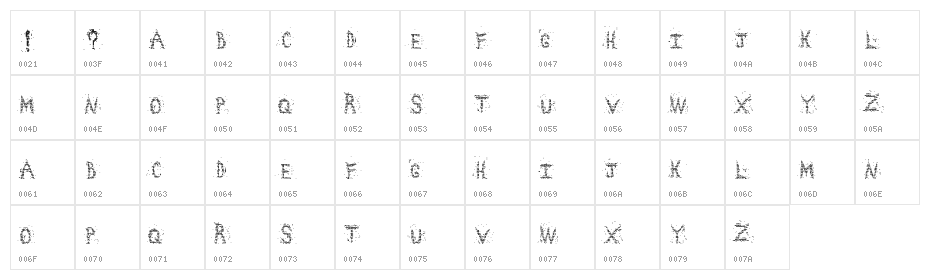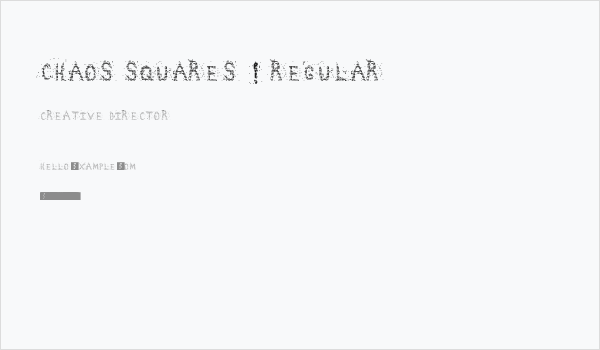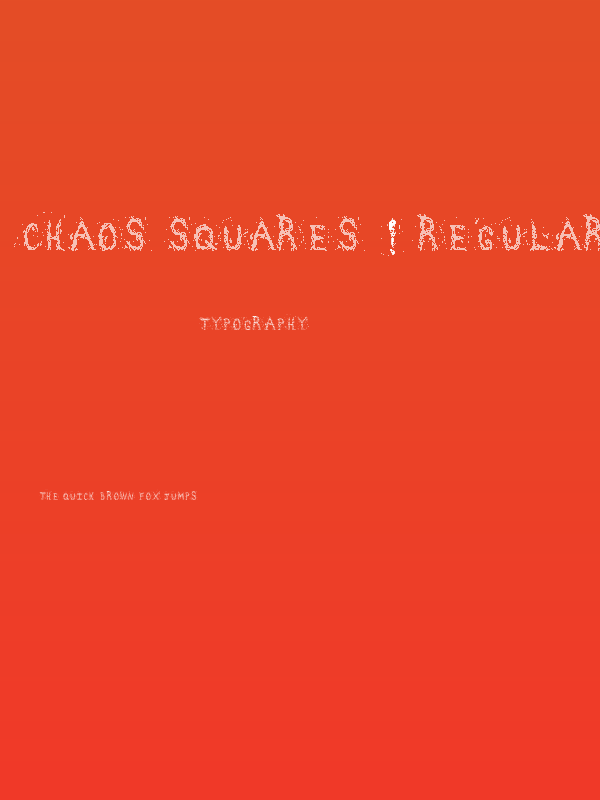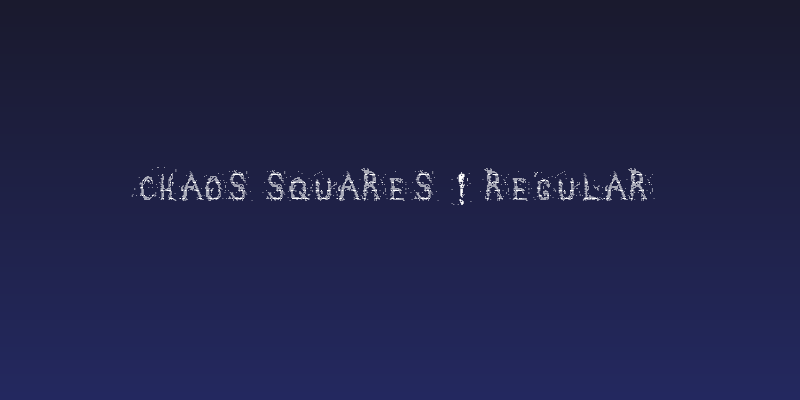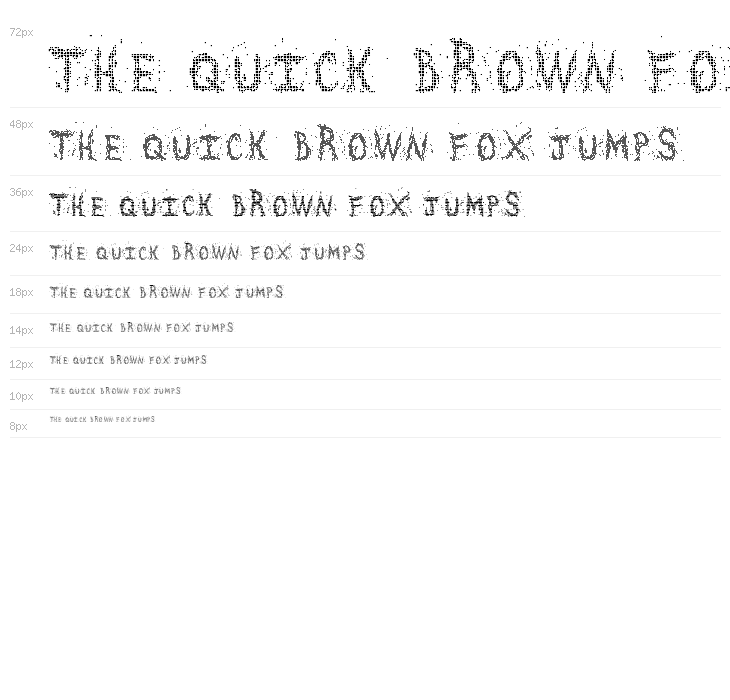
Chaos squares ! Regular Font
Chaos squares ! Regular Description
This font features a unique and chaotic design, characterized by its irregular and fragmented appearance. Each letter is composed of small, scattered square-like elements that create a sense of disorder and randomness. The overall effect is visually striking, with a textured and gritty aesthetic that stands out. The uppercase letters are bold and prominent, while the lowercase letters maintain the same chaotic style. This font is ideal for projects that require a distinctive and unconventional look, such as artistic designs, posters, or album covers. Its fragmented style adds an element of intrigue and creativity, making it suitable for modern and edgy applications.
| Overall Style | Modern, Edgy |
| Use Case | Headlines, Artistic designs |
| Proposed Projects | Artistic designs, posters, album covers, edgy branding. |